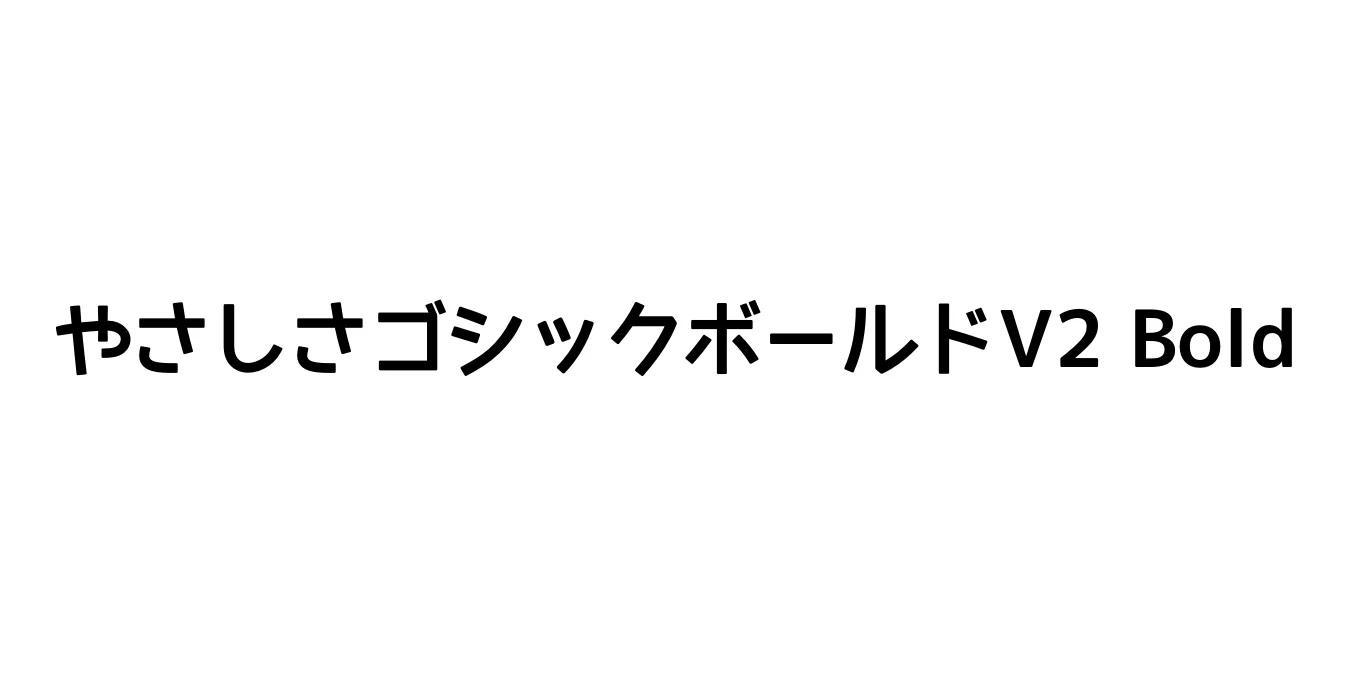
やさしさゴシックボールドV2 Bold
やさしさゴシックボールドV2 Bold (Yasashisa Gothic Bold V2) is a refined Japanese gothic typeface designed to evoke a sense of warmth and friendliness. Based on the open-source M+ FONTS project, this version features subtly rounded terminals and a carefully balanced stroke weight that maintains high readability even at smaller sizes. Its design philosophy focuses on "kindness" (yasashisa), making it a popular choice for designers seeking a professional yet approachable aesthetic for modern digital and print media.
This V2 iteration improves upon the original release by optimizing character spacing and enhancing the consistency of the kanji characters. As a Free for Commercial Use font, it has become a staple in the Japanese design community for everything from YouTube thumbnails and social media graphics to corporate presentations. Its versatility and clear, bold presence allow it to bridge the gap between casual handwritten styles and rigid geometric sans-serifs, providing a human touch to digital typography.
やさしさゴシックボールドV2 Bold Best Uses
Perfect for mobile apps and websites that require a friendly, legible interface.
Excellent for YouTube thumbnails and Instagram graphics due to its bold, high-impact look.
Works well for titles and headings in lifestyle magazines or digital blogs.
Ideal for promotional banners and advertisements that need to feel welcoming yet professional.